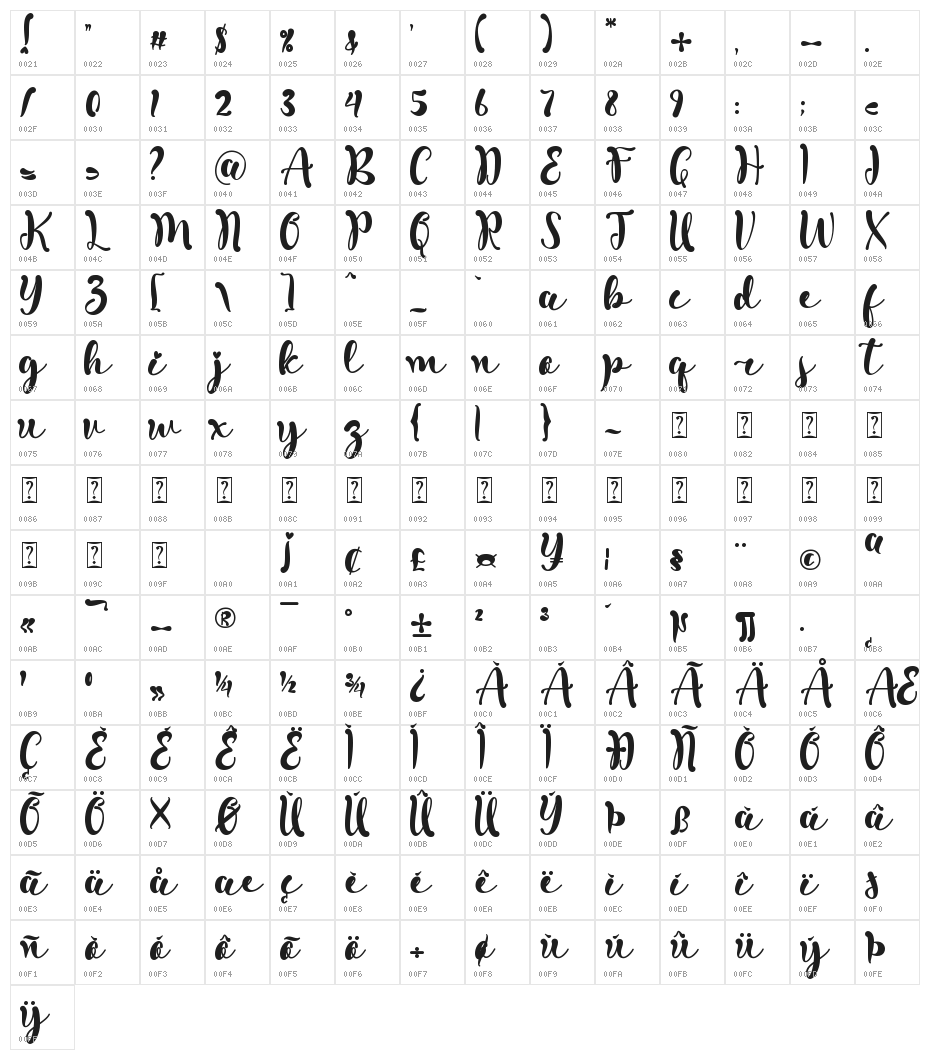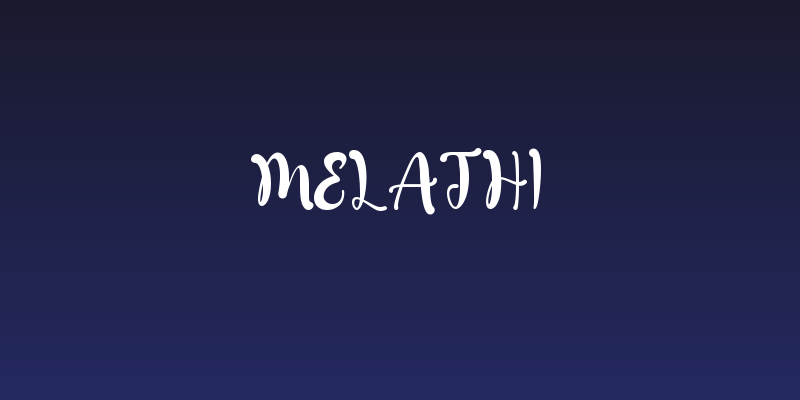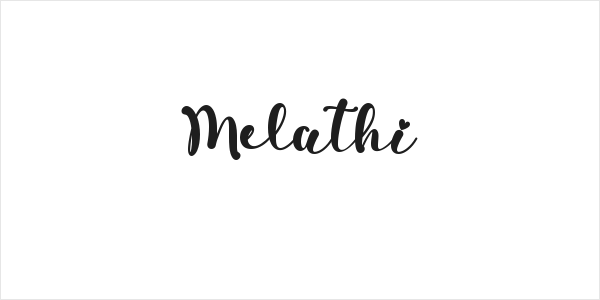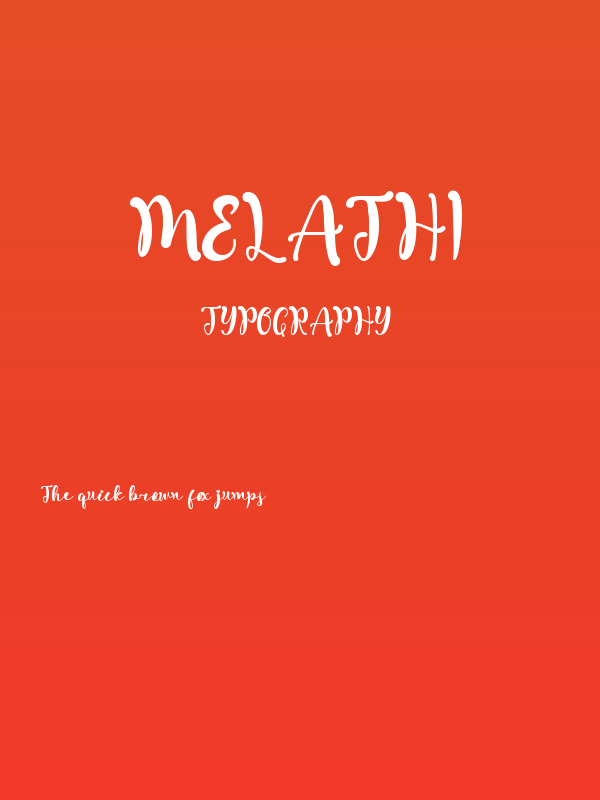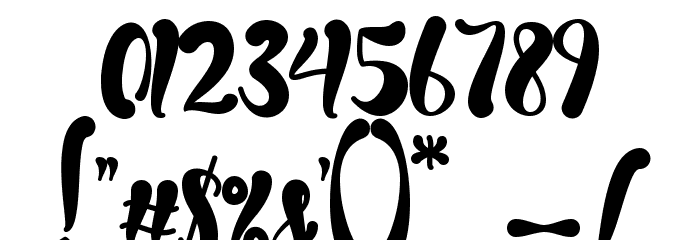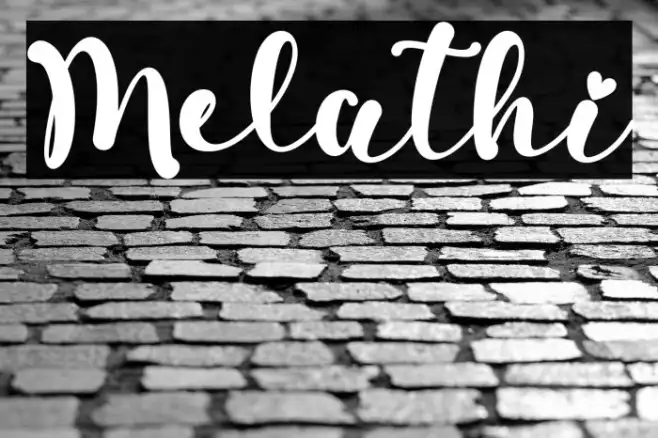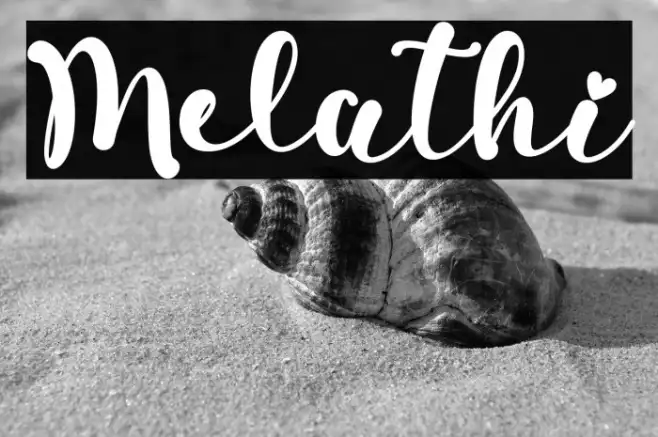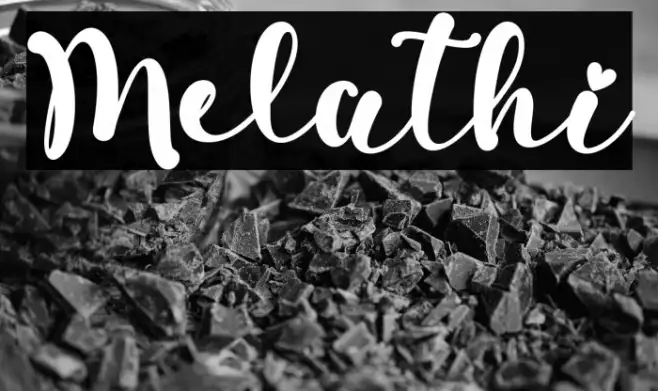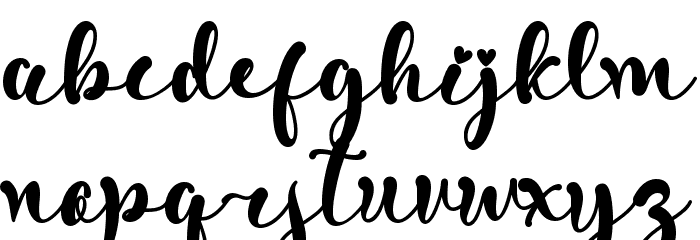
Melathi Font
Melathi Description
This font features a playful and artistic script style with a handwritten feel. The uppercase letters are bold and flowing, with a whimsical flair that adds personality to each character. The lowercase letters maintain a consistent style, offering smooth curves and loops that enhance readability while retaining a creative touch. The numbers are equally expressive, with a bold presence that matches the overall aesthetic. Special characters are designed with the same attention to detail, ensuring they blend seamlessly with the rest of the font. This font is ideal for projects that require a touch of elegance and creativity, such as invitations, greeting cards, and branding materials.